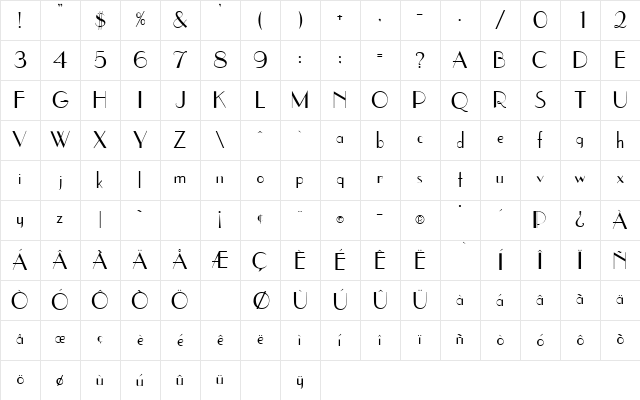
JetSetSSK Regular
Design Context for JetSetSSK
JetSetSSK is a composed and adaptable typeface that performs quietly and consistently across a wide range of design contexts.
Pro Tip: Use JetSetSSK in both headline and body roles to test its range before committing to a single application.